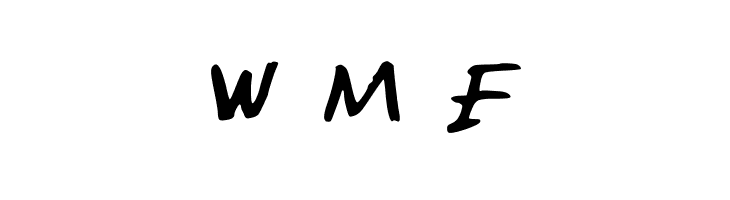
• AlexandriaFLF-Bold
A bold, classic serif font with strong vertical lines and subtle curves.
• AlexandriaFLF-BoldItalic
A bold and italicized font with a dynamic and elegant style.
• AlexandriaFLF-Italic
A refined italic font with elegant, slanted characters and smooth curves.
• Alexandrines Demo
An elegant script font with sweeping curves and high contrast, perfect for sophisticated designs.
• Alexandroupoli
A dynamic cursive script font with elegant, fluid strokes.
• Alexandry Swash
A decorative design with elegant, flowing lines and intricate swirls.
• AlexDirte Brush Font-Regular
A bold, expressive brush-style font with a rough, handcrafted appearance.
• alexey
A futuristic, geometric font with bold, angular letterforms.
• alexey
A modern, geometric font with smooth lines and a futuristic style.
• Alexfont
• Alexi
A bold, cursive font with a dynamic, handwritten style.
• AlexInDR ExtremEdit
A modern, geometric font with a sleek, futuristic design.
• Alexis
A futuristic and geometric font with bold, angular characters.
• Alexis 3D
A bold, 3D futuristic font with geometric shapes and sharp angles.
• Alexis 3D Italic
A bold, 3D italic font with outlined characters and a futuristic style.
• Alexis Bold
A bold, futuristic font with angular, geometric elements and a strong presence.
• Alexis Bullet
A futuristic, geometric font with outlined, angular letterforms.
• Alexis Bullet Italic
A futuristic italic font with bold outlines and geometric shapes.